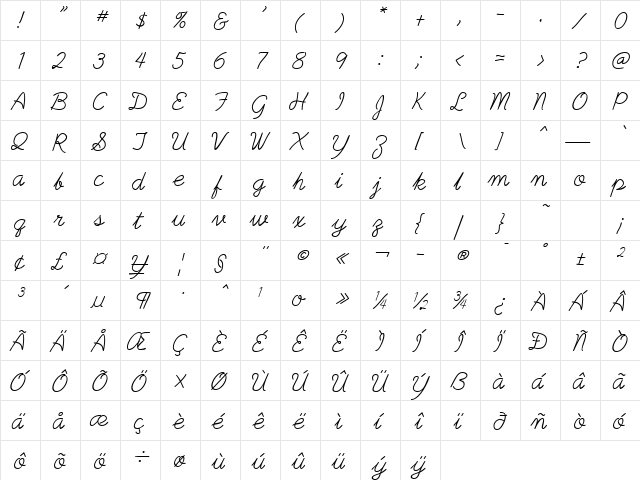
PlainPensle Italic
Design Context for PlainPensle Typeface
PlainPensle offers clean, dependable letterforms without strong stylistic allegiance, making it a practical choice for designers who need flexibility. The slanted form adds forward momentum and visual energy.
Pro Tip: Use PlainPensle for emphasis, pull quotes, and subheadings where its slanted energy can add rhythm to the layout.